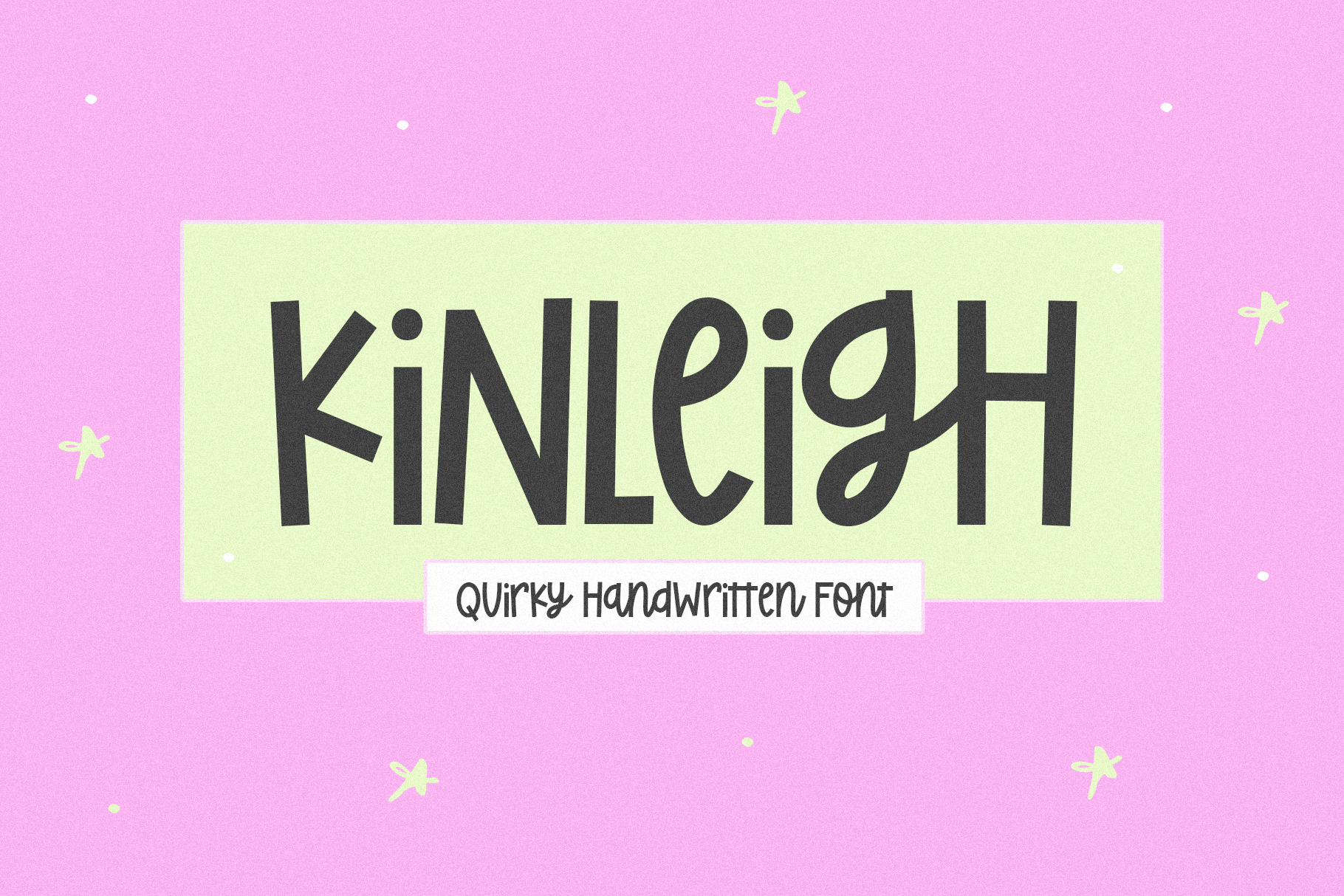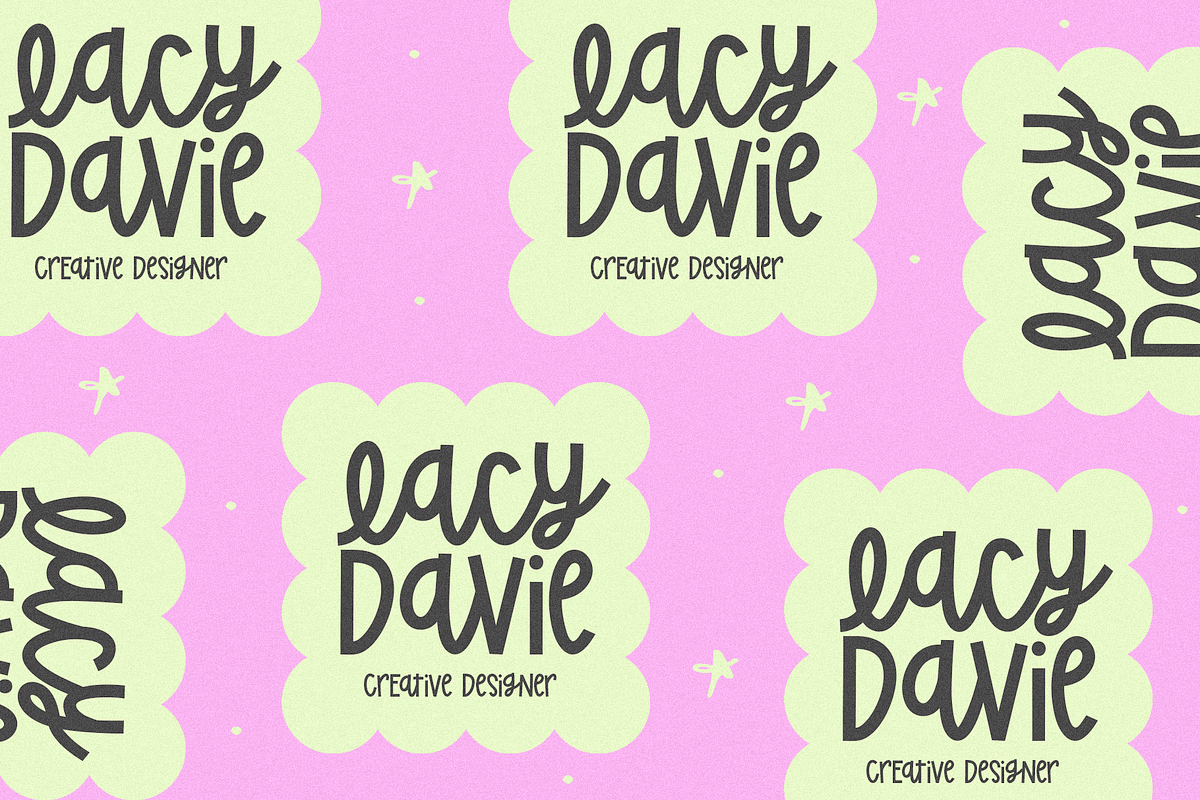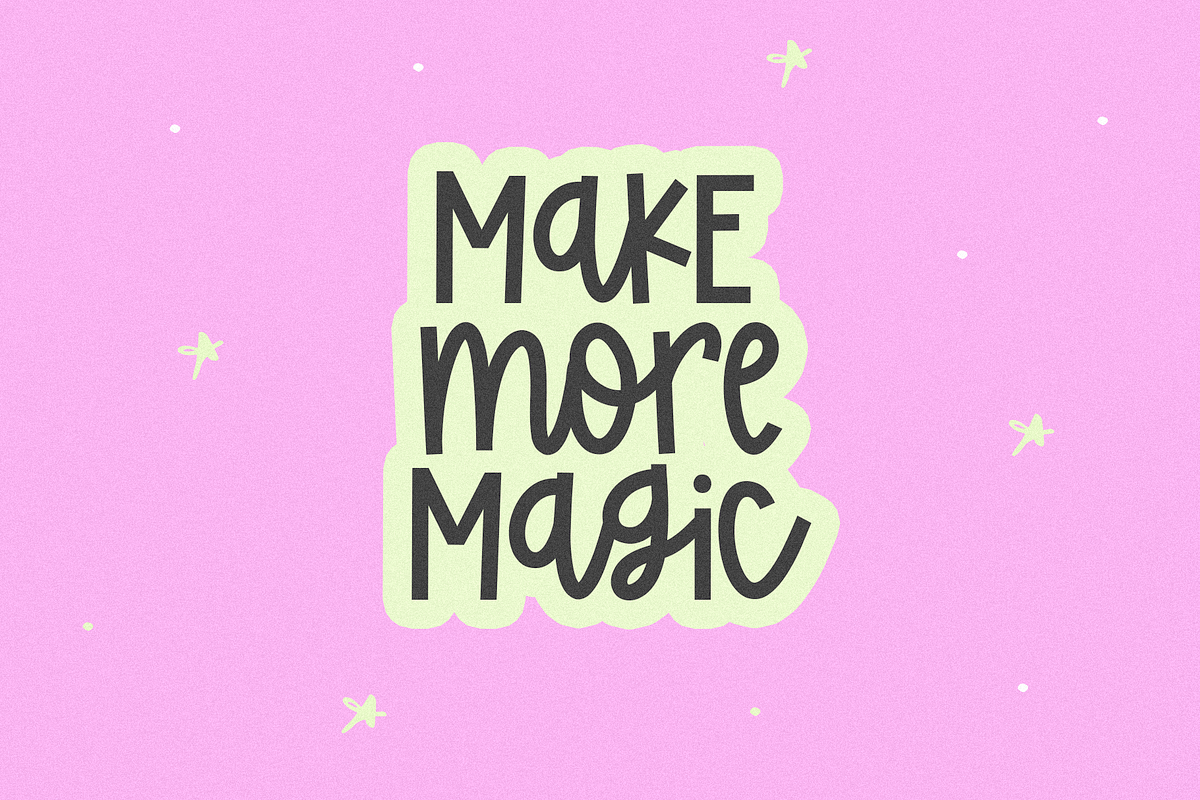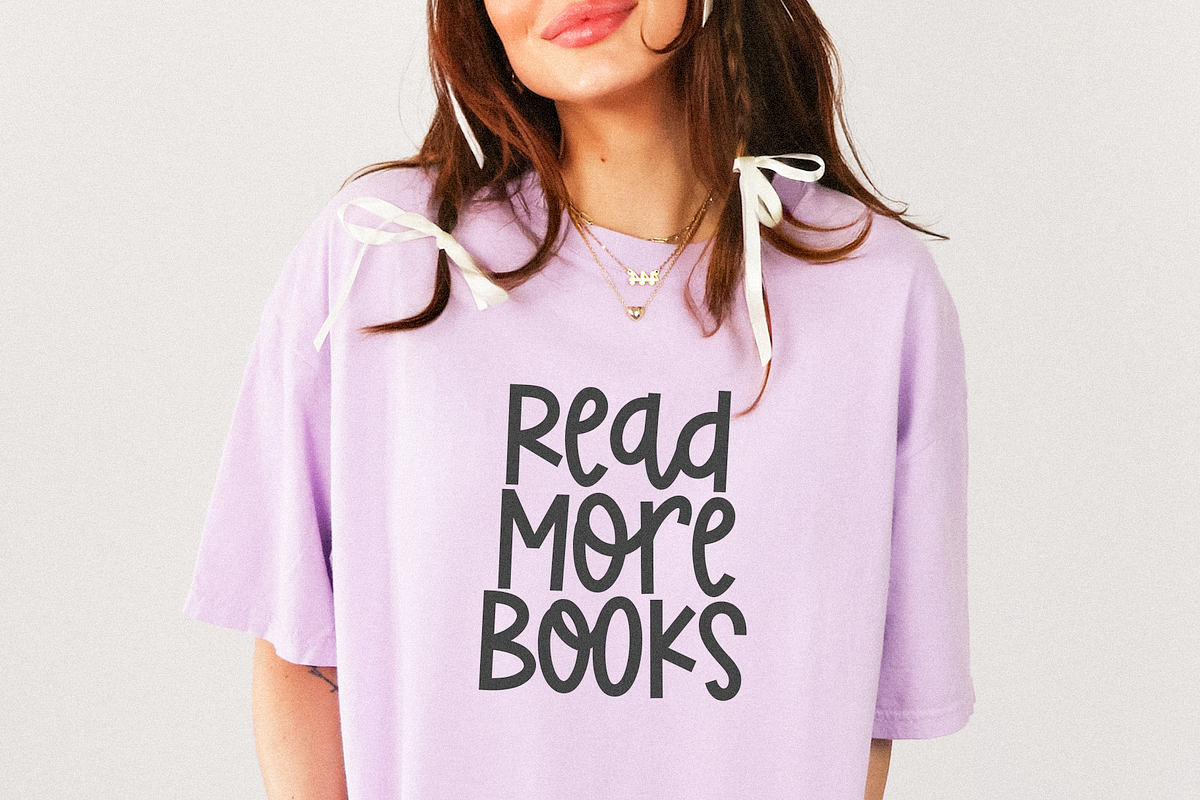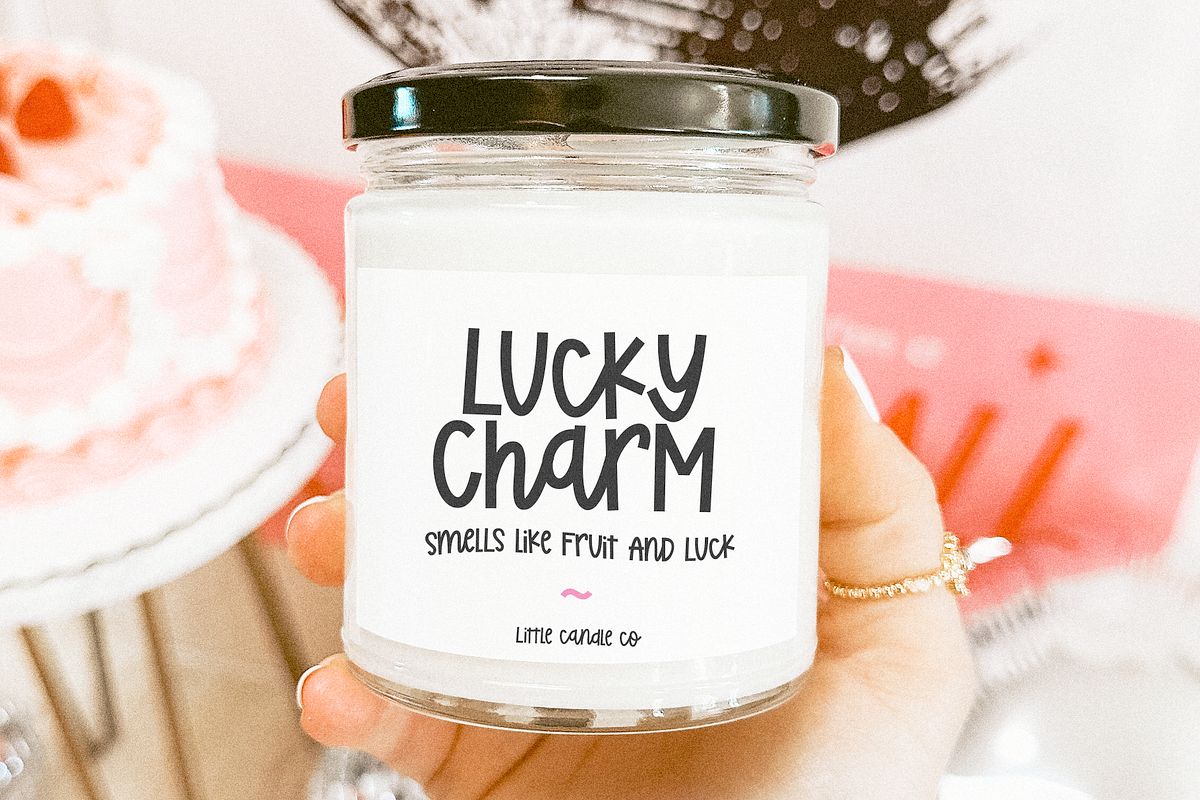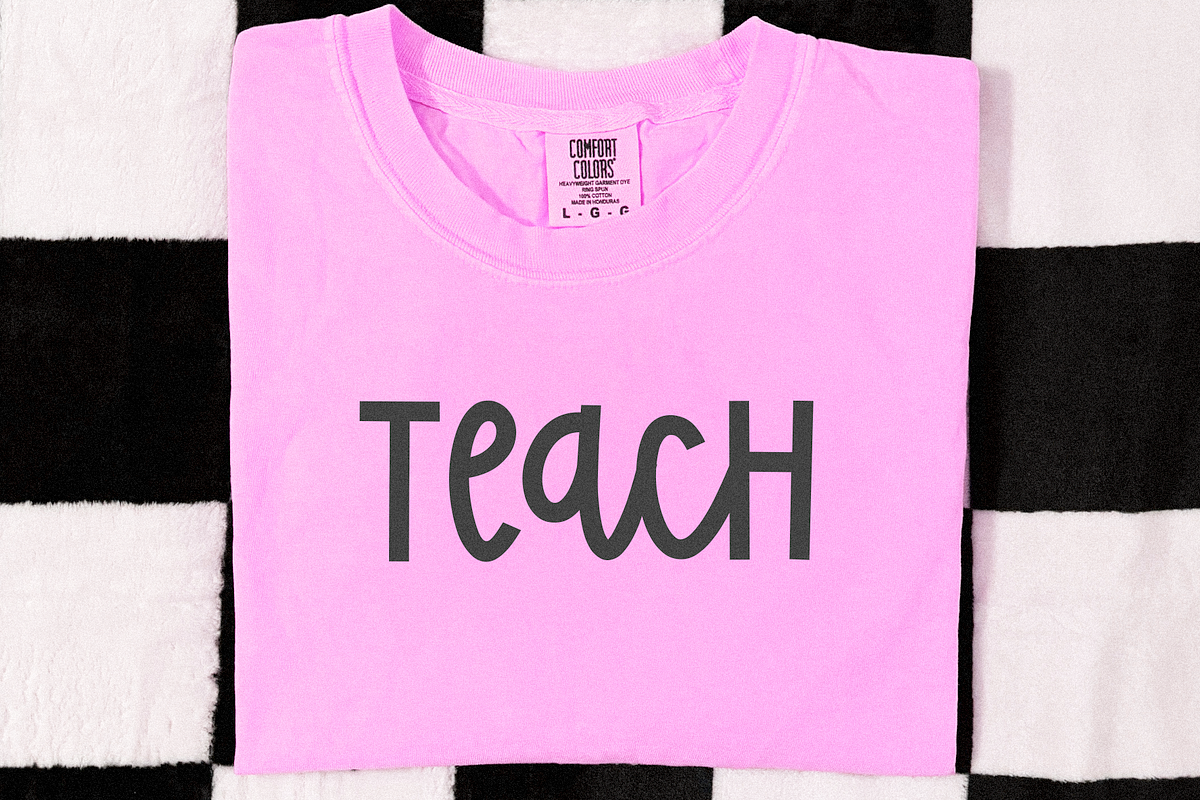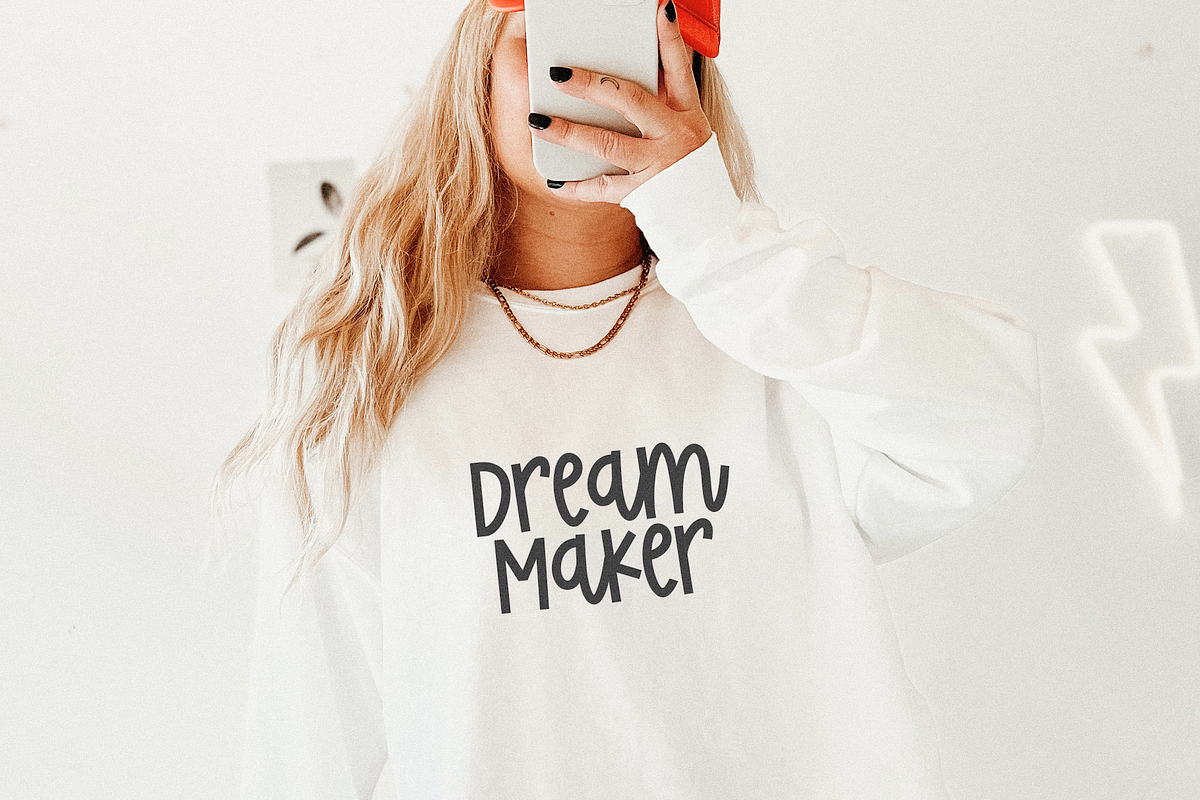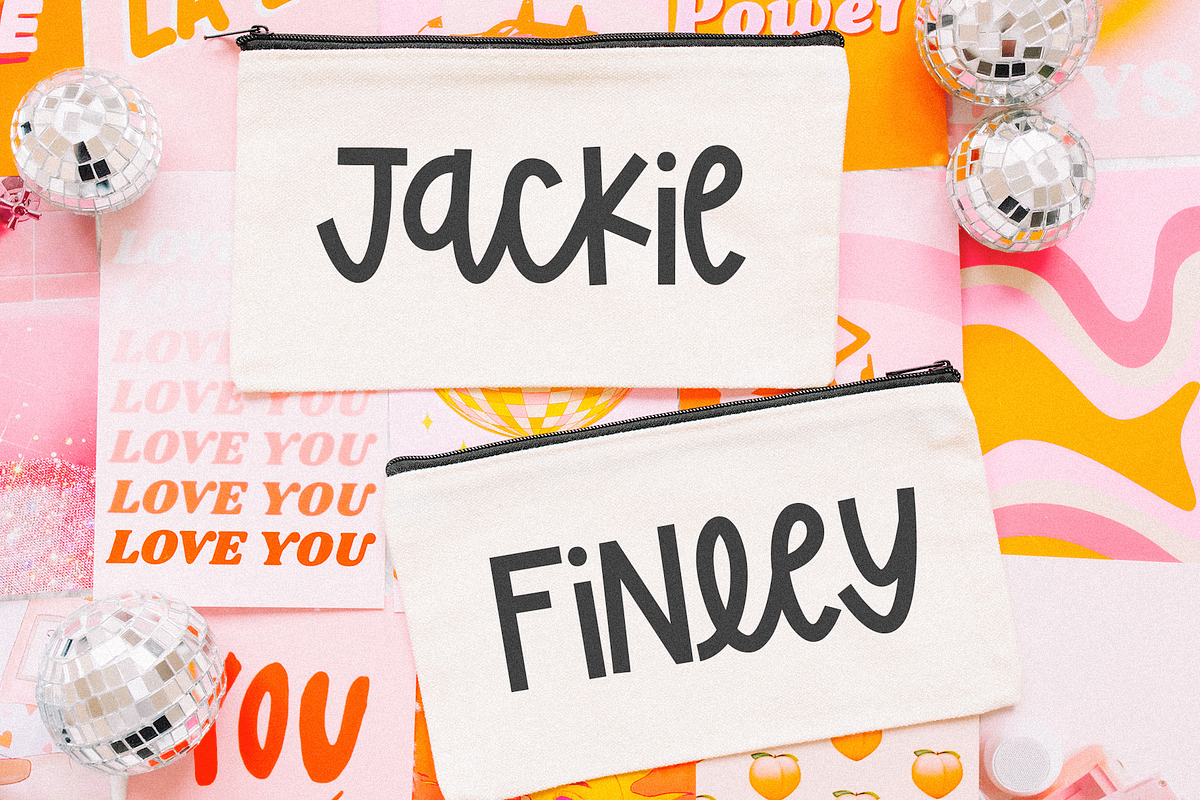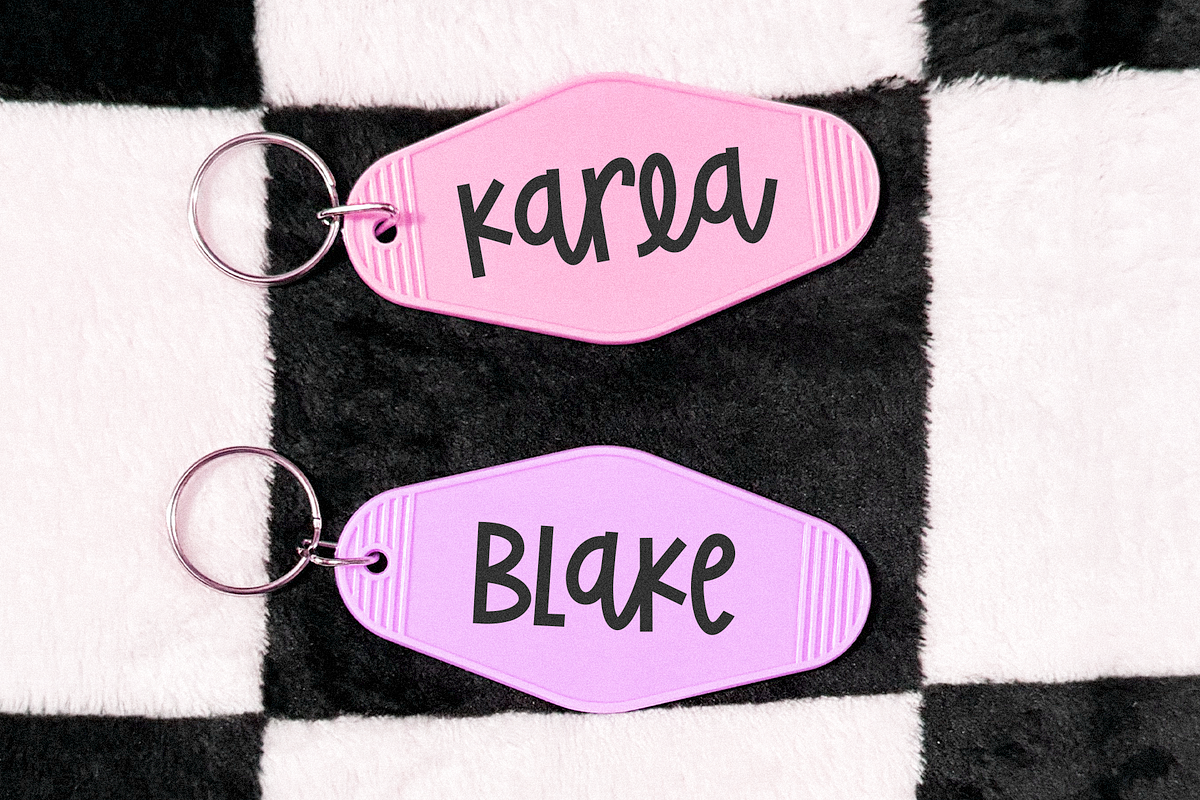
Kinleigh | Cute Quirky Font
Kinleigh is a cute + quirky handwritten font.
This font is perfect for logos, cricut projects, stickers, svg files, canva, quotes, teachers, lasers, goodnotes and more!